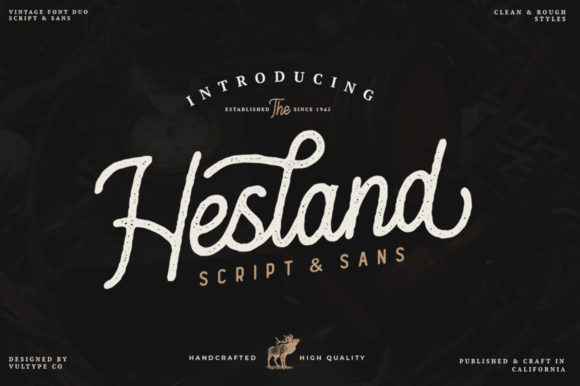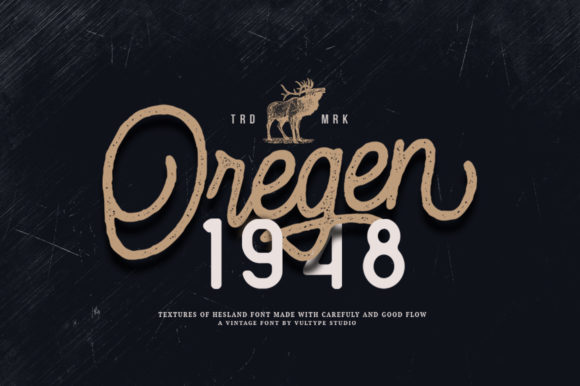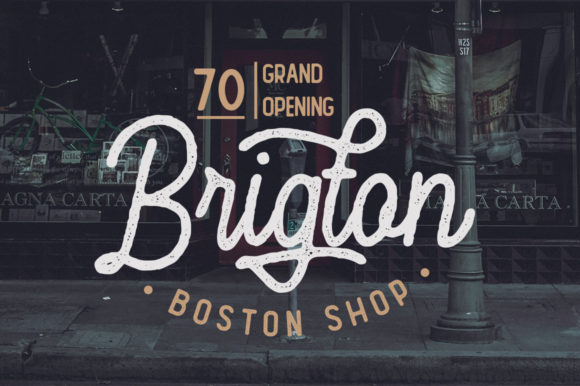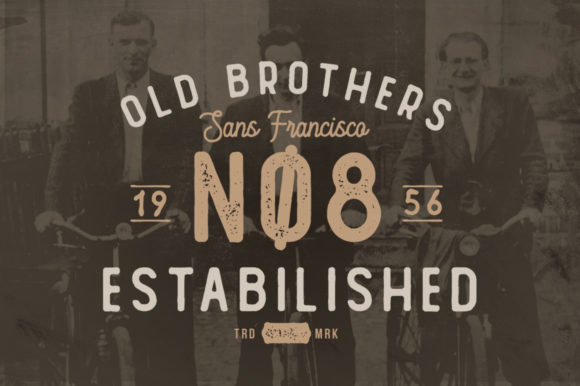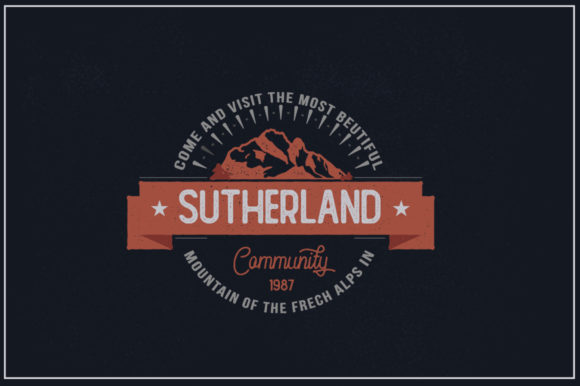
Hesland Font
About Hesland Font
Inspired by classic posters, Hesland is a simple, yet impactful handwritten font that celebrates all things vintage. Get inspired this one-of-a-kind typeface!